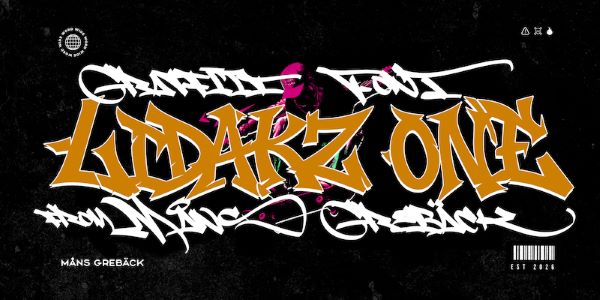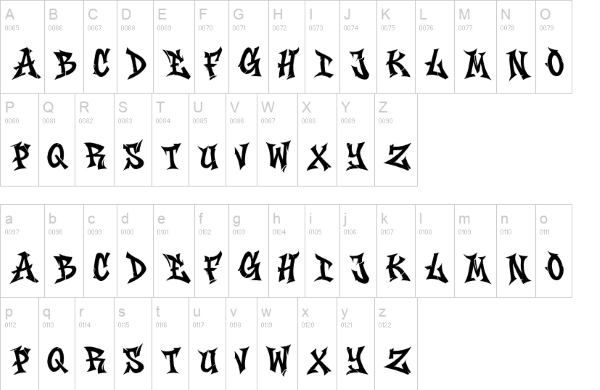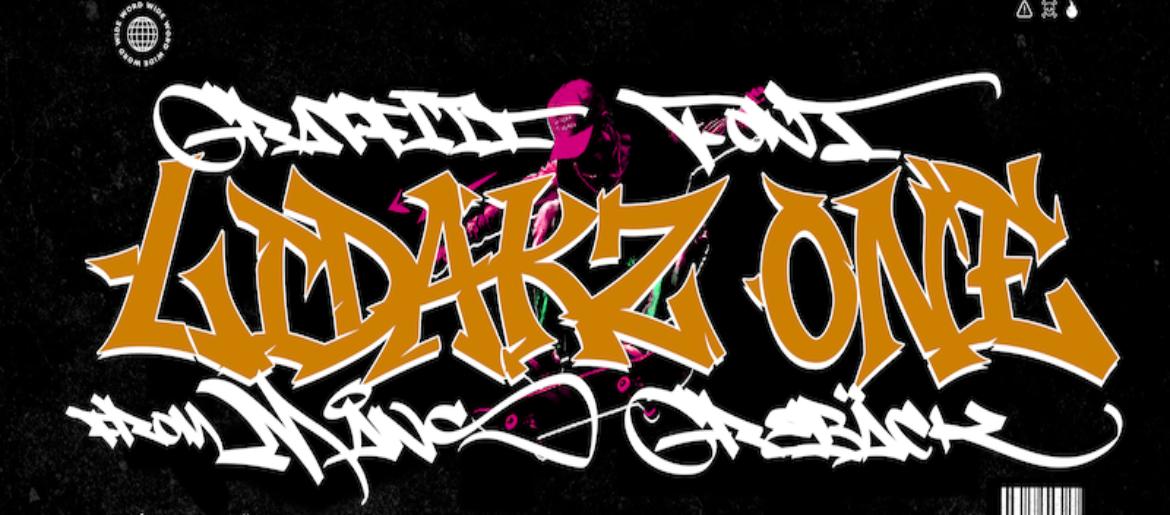
Lidakz One Font
Lidakz One Font is a sharp, energetic graffiti typeface with a raw, hand-cut attitude. Built from angular strokes and pointed terminals, it delivers an aggressive yet playful rhythm. The compact, back-leaning structure adds tension and movement, making it ideal for streetwear logos, posters, album covers, and urban designs that demand bold personality.
➤ Font Name: Lidakz One
➤ Designer: Måns Grebäck
➤ Style: Graffiti